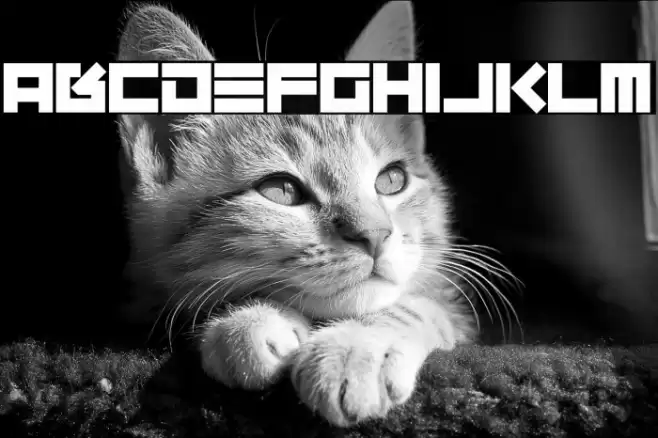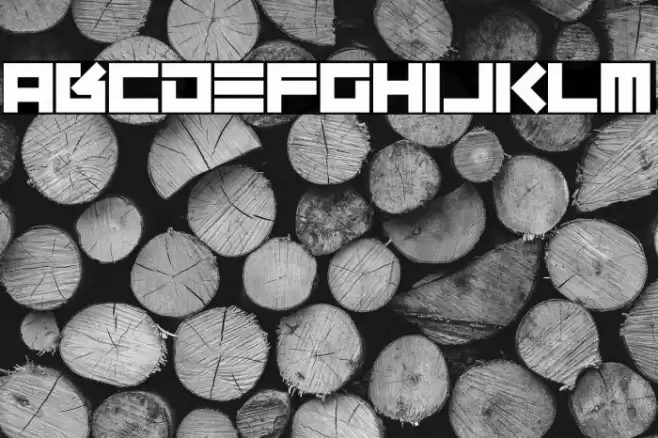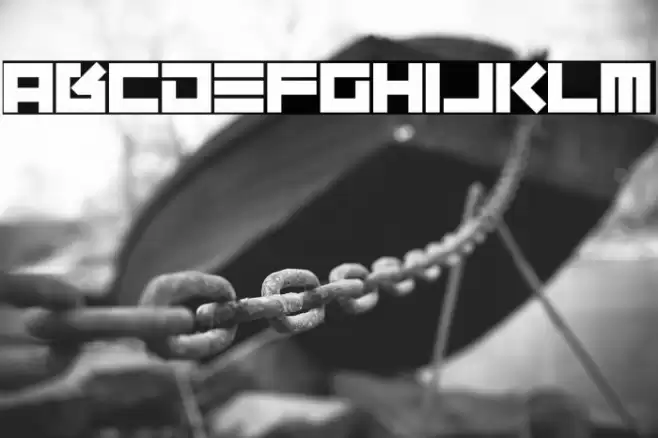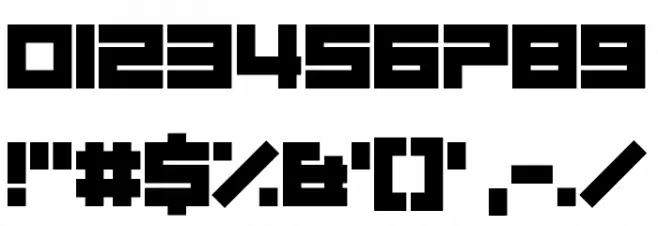
XXX Thirty Font
XXX Thirty Description
This font features a bold, geometric design with a distinctly futuristic and digital aesthetic. Each character is constructed with thick, block-like shapes that create a strong visual impact. The angular forms and consistent stroke width give it a mechanical feel, reminiscent of digital displays or retro video games. The uppercase and lowercase letters share a similar structure, enhancing the uniformity of the typeface. Numbers and special characters are equally bold and geometric, maintaining the overall style. The font's design is highly stylized, making it ideal for projects that require a modern and edgy look.
A bold, geometric font with a futuristic, digital aesthetic from Uncategorized fonts.
- Proposed Projects: Ideal for video game titles, tech branding, digital art projects, and futuristic-themed designs.